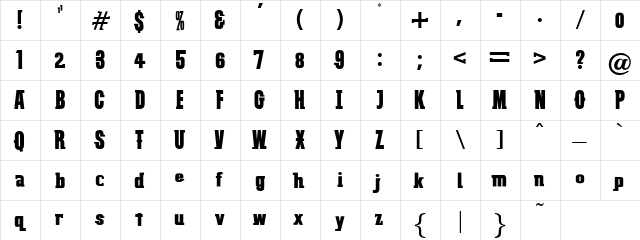
VTC SubwaySlam Regular
| Designer | WolfBainX |
Design Context for VTC SubwaySlam Typeface
VTC SubwaySlam is a composed and adaptable typeface that performs quietly and consistently across a wide range of design contexts.